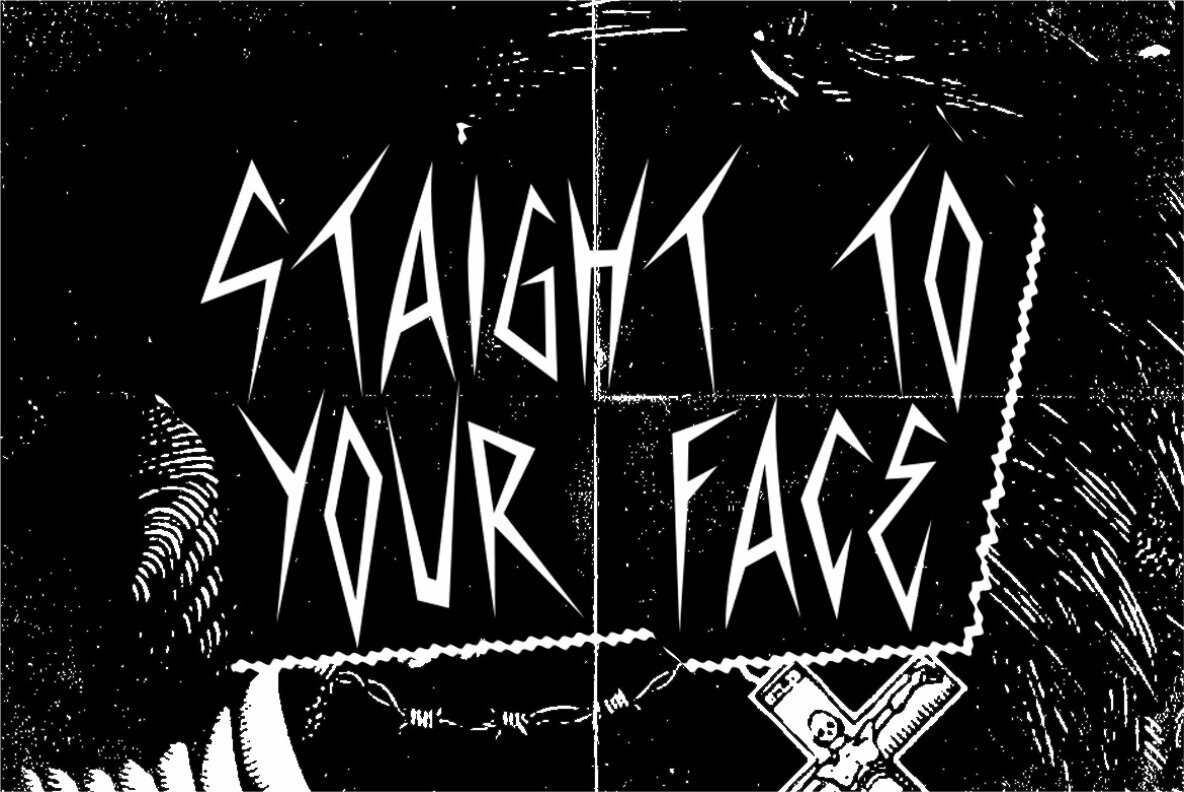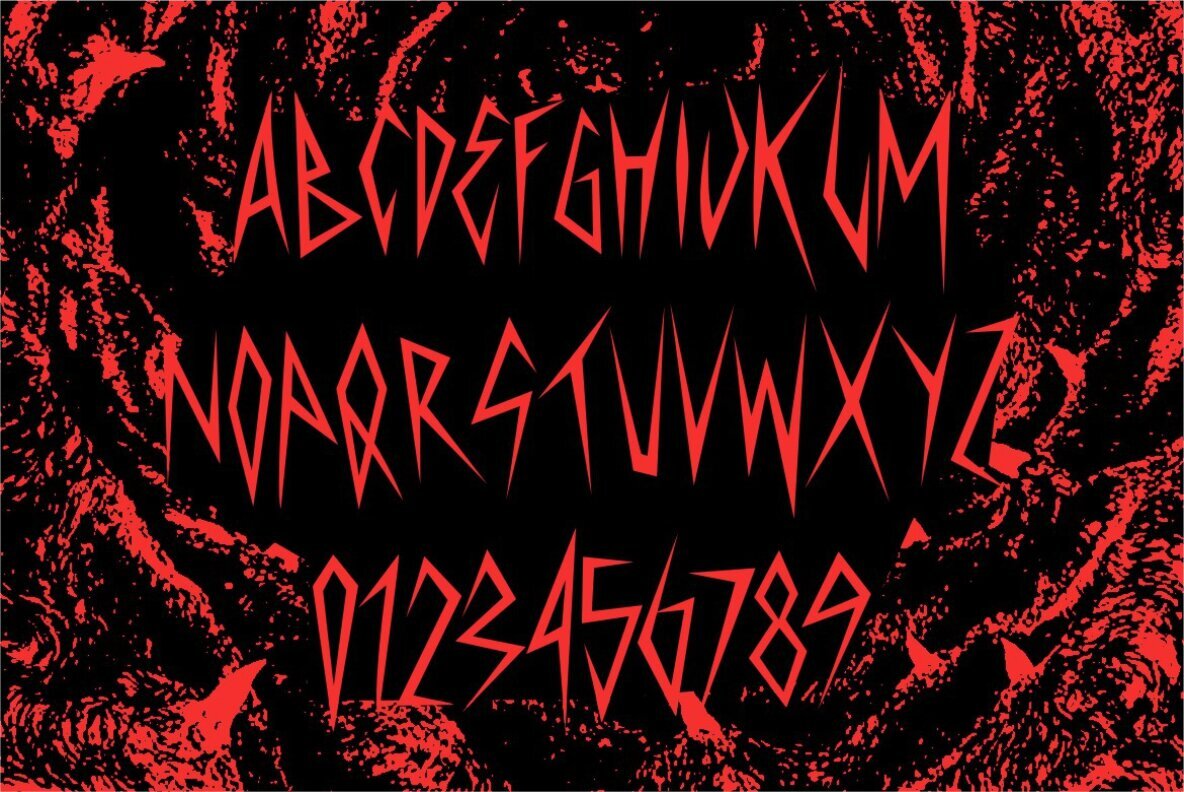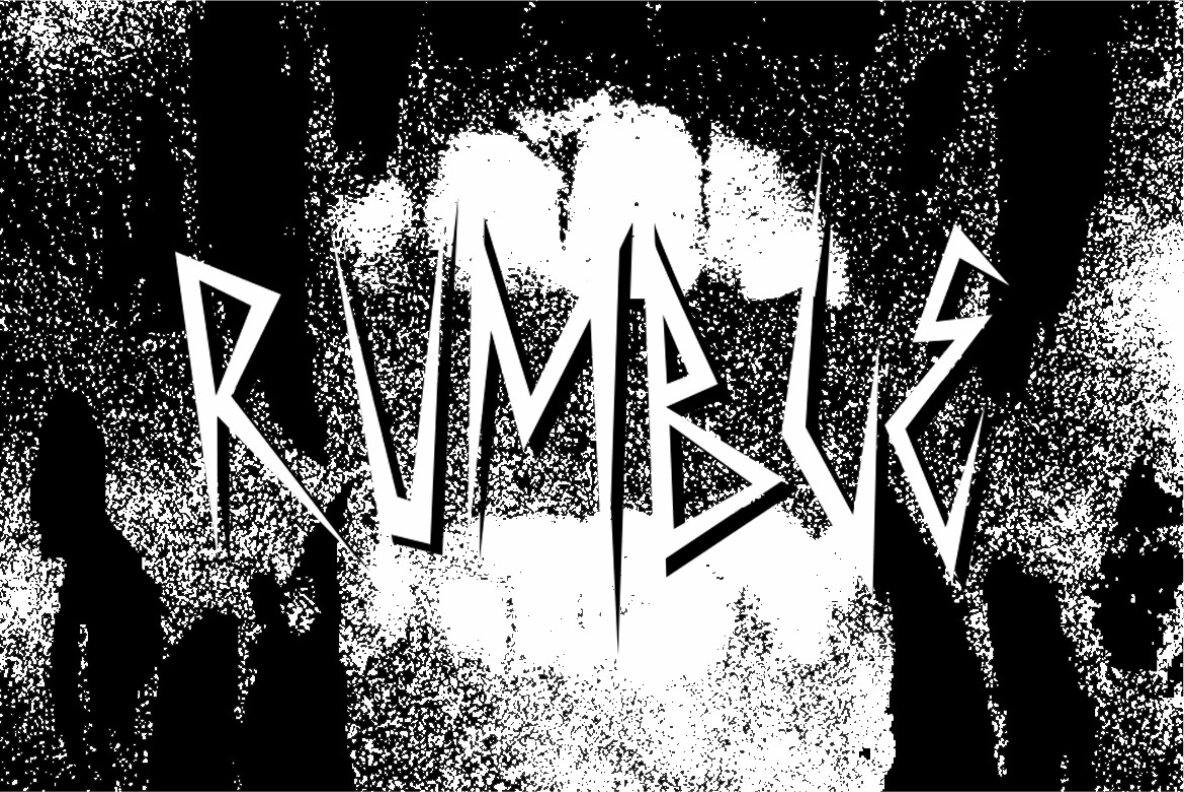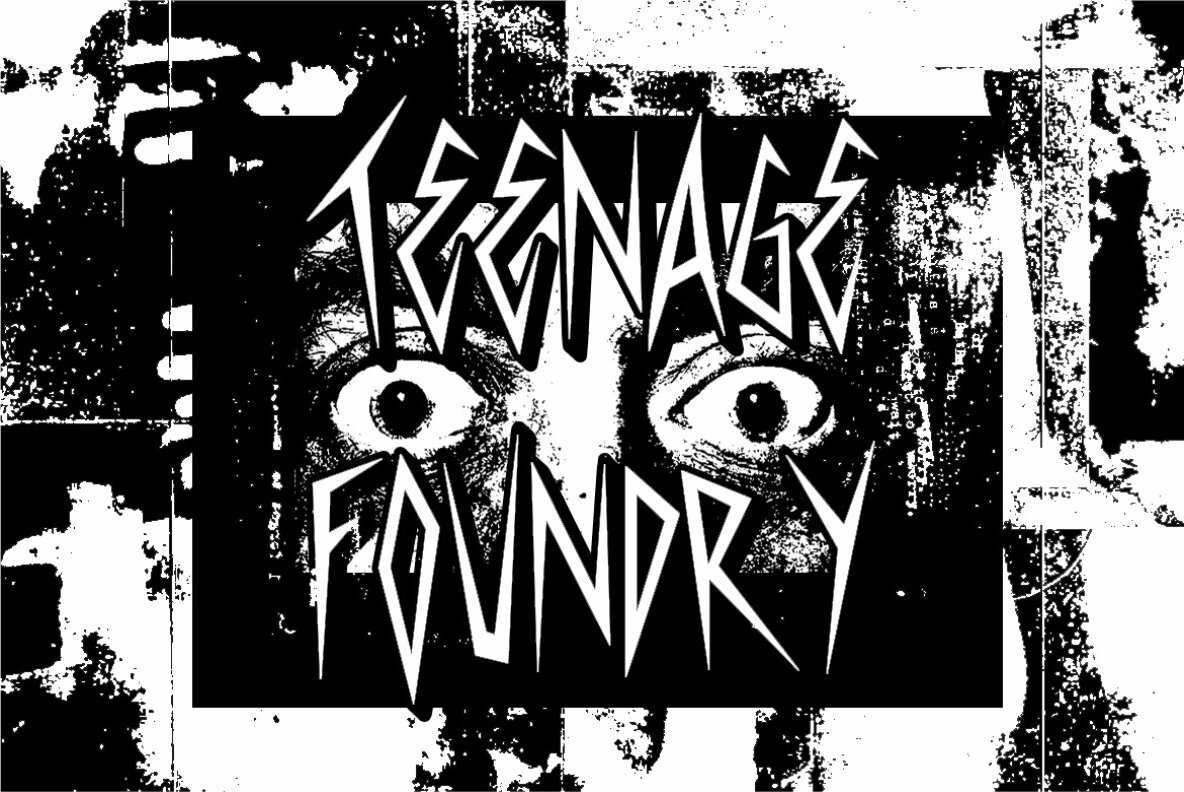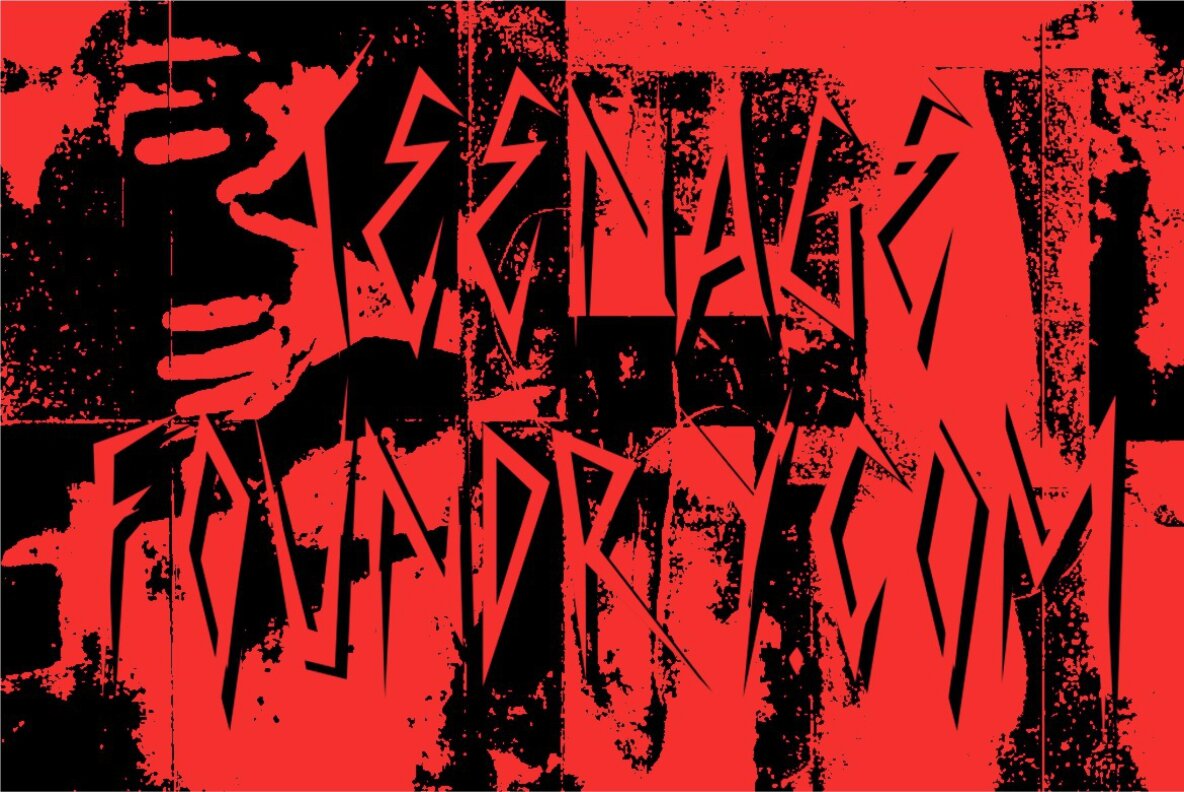
TF Sadistic Font
TF Sadistic Regular
TF Sadistic by Teenage Foundry is a meticulously crafted display font designed to add a sharp and charming aesthetic to your creative projects. This font is an ideal choice for designs that require attention-grabbing elements, such as metallics and horror posters. Its distinct style makes it a versatile tool for impactful visual materials. TF Sadistic offers extensive multilingual support, accommodating a wide range of languages including Afrikaans, Albanian, Spanish, Swedish, and many more.TF Sadistic: A Bold Display Font with a Sharp Edge
Distinct Style and Versatility
Design Features
Multilingual Support